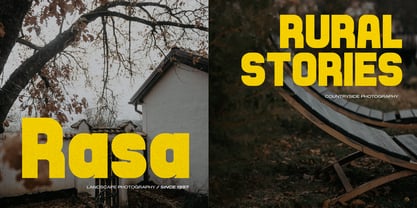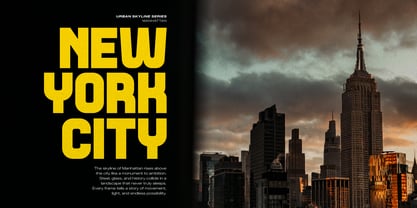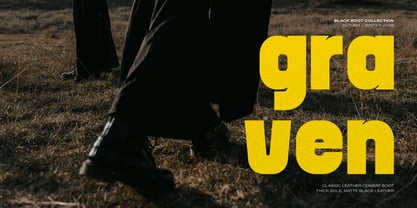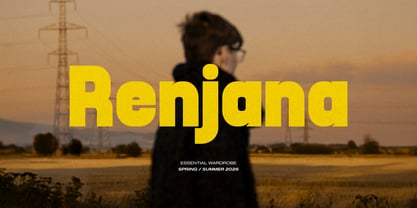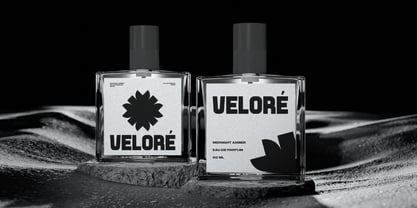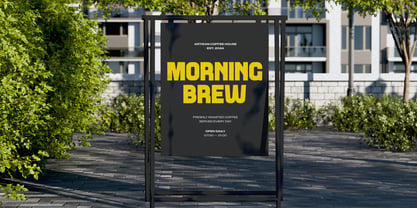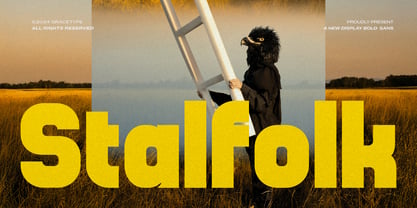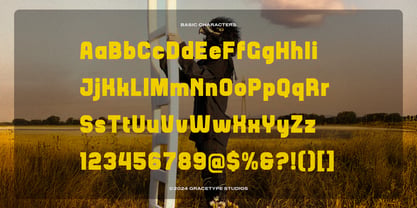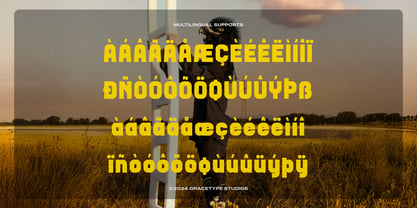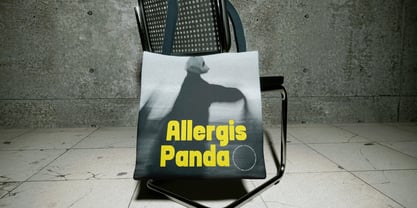
Stalfolk
Stalfolk | Display Bold Sans, from Gracetypestudio, suitable for any projects such as: logos, branding projects, homeware designs, product packaging, mugs, quotes, posters, shopping bags, t-shirts, book covers, name card, invitation cards, greeting cards, label, photography, watermark, special events, and all your other lovely projects that need a Sans taste.